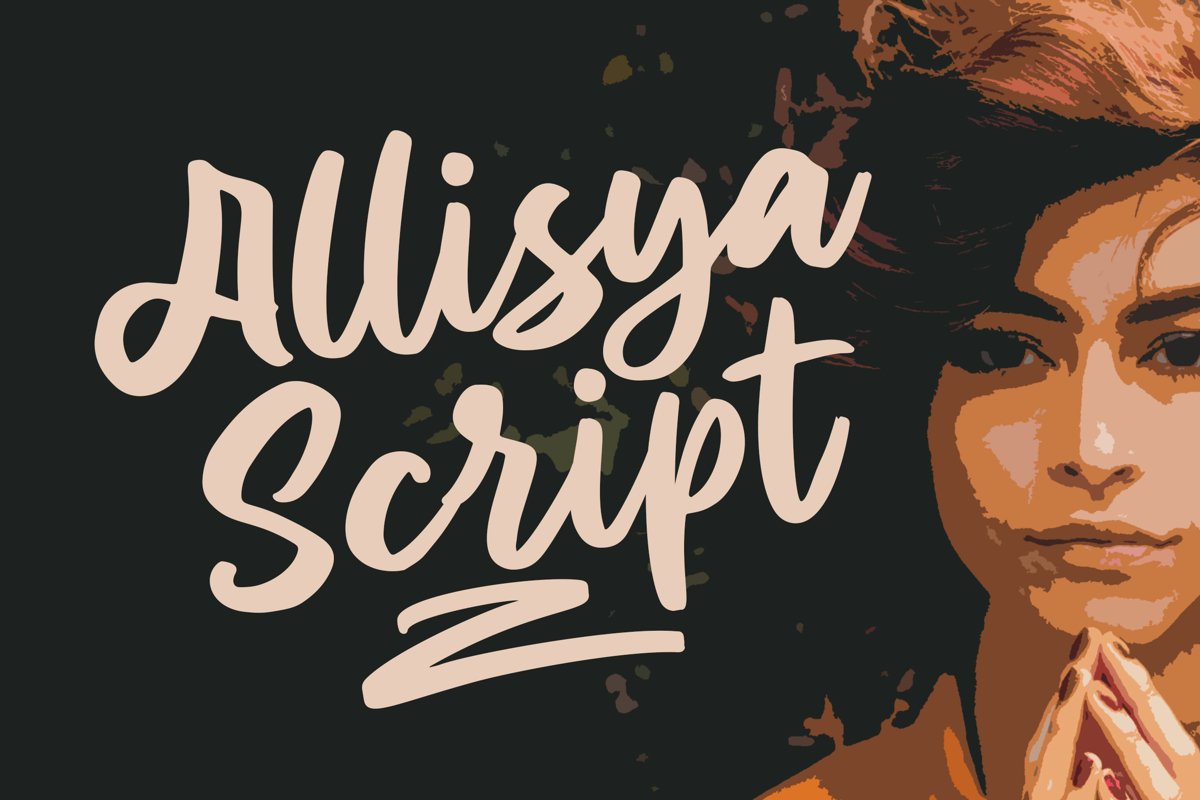
Allisya Brush Script
Allisya
Introducing Allisya Brush Font, script with unique strokes makes it beautiful and looks natural as written by hand.
Allisya is perfect for signature, branding, wedding, fashion, photography title, poster, social media, music album, book cover, packaging, handwritten quotes, greeting cards, and advertising.
All fonts containing upper & lowercase characters, numerals, punctuation, multilingual support.